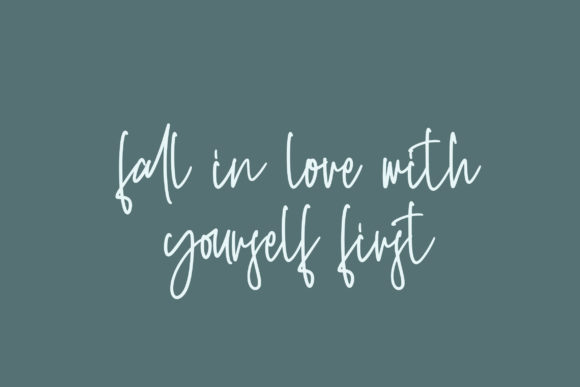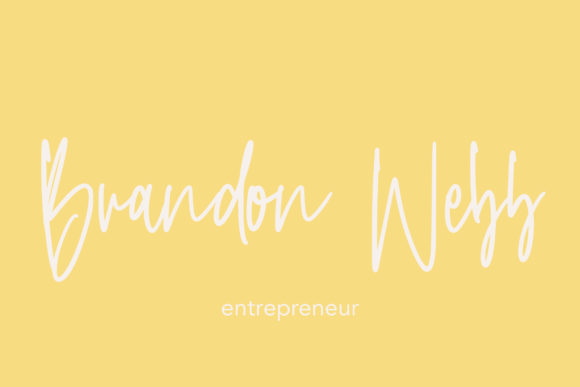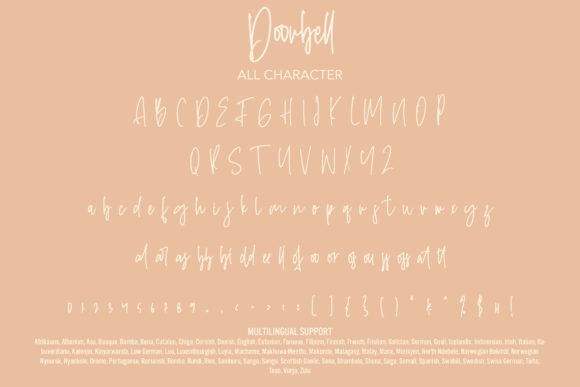
Introduction to Doorbell Font
Have you ever been working on a creative project, staring at a blank canvas, and suddenly a spark of inspiration hits you? You envision a warm, inviting, and playful design that captures the essence of a sunny day. That’s exactly what the Doorbell Font can bring to life.
As a valuable design resource, the Doorbell Font is a sweet and friendly handwritten font that adds a personal touch to any project. Its natural and unique style makes it incredibly fitting for a wide range of designs, from greeting cards to social media graphics.
Key Features of Doorbell Font
- Unique and customizable design elements for creative projects
- High-quality design resource with a transparent background for seamless integration
- Perfect for use in graphic design, digital art, and other creative endeavors
- Includes a range of scalable vector graphics (SVG) for easy editing and customization
Honest Review: Doorbell Font
I recently had the chance to try out the Doorbell Font, and I must say it’s been a pleasant experience. The font is designed with a fun and quirky vibe, making it perfect for creative projects that need a playful touch.
- ✨ The font is incredibly versatile and can be used in a variety of contexts, from signage to print materials.
- ✨ The high-quality design ensures that the font looks great on a transparent background, which is a big plus for designers who want to add some extra flair to their work.
- ⚠️ The font may not be suitable for formal or professional projects, as it has a somewhat casual tone.
- ⚠️ Some users may find the font too bold or attention-seeking, which could be a drawback for those who prefer more understated designs.
Overall, I’m impressed with the Doorbell Font and would recommend it to designers who are looking for a fun and creative design resource. Just be sure to use it in the right context to get the most out of it!
Tips for Getting the Most Out of Doorbell Font
To get the most out of Doorbell Font, use it in combination with other design elements, such as graphics and images, to create a cohesive and engaging visual identity. You can also experiment with different font sizes, colors, and styles to create a unique look.
Doorbell Font is ideal for creative projects that require a modern and playful touch. Common use cases include social media graphics, blog posts, and marketing materials. With its free download and high-quality design, Doorbell Font is a valuable resource for designers and non-designers alike.